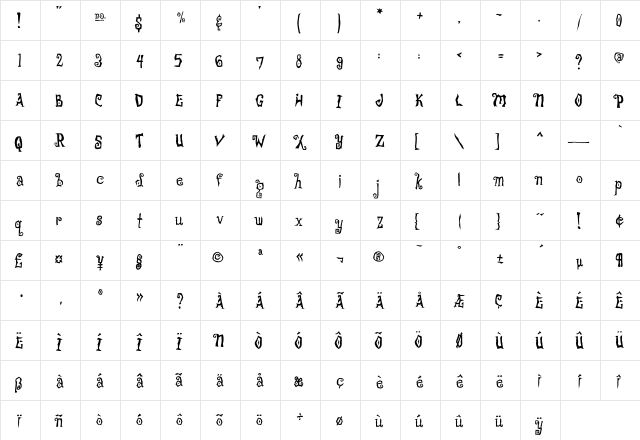
Freakshow RealScary Font Preview
Freakshow RealScary
Design Context for Freakshow Typeface
Freakshow carries an unsettling edge — its distorted letterforms are built to unsettle, perfectly suited to horror, Halloween, and dark creative work.
Ideal for Halloween projects, horror film titles, haunted house signage, and dark editorial design.
Font Pairing: Pair with a clean neutral sans-serif for body copy to let Freakshow's character lead without overwhelming the composition.
Pro Tip: Freakshow works best as a headline or focal element. Pair it against plain, neutral body text to amplify the contrast.